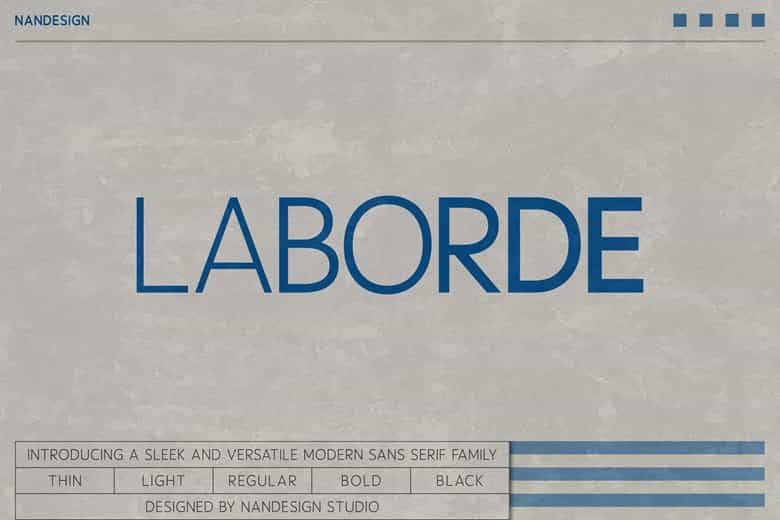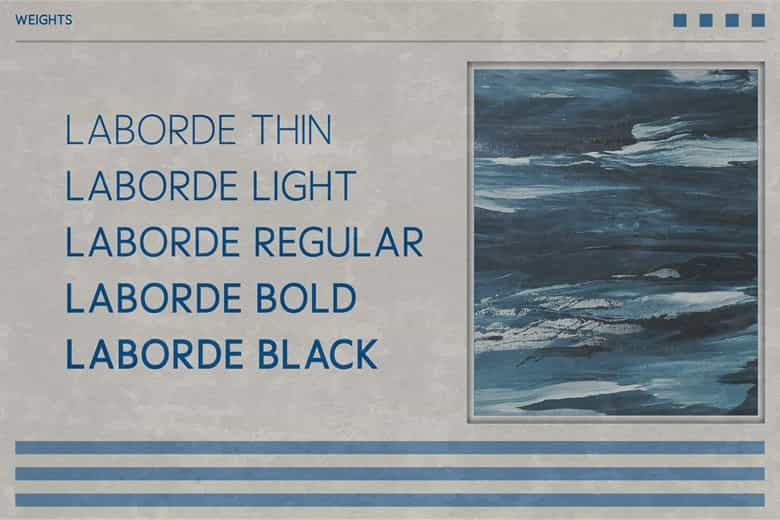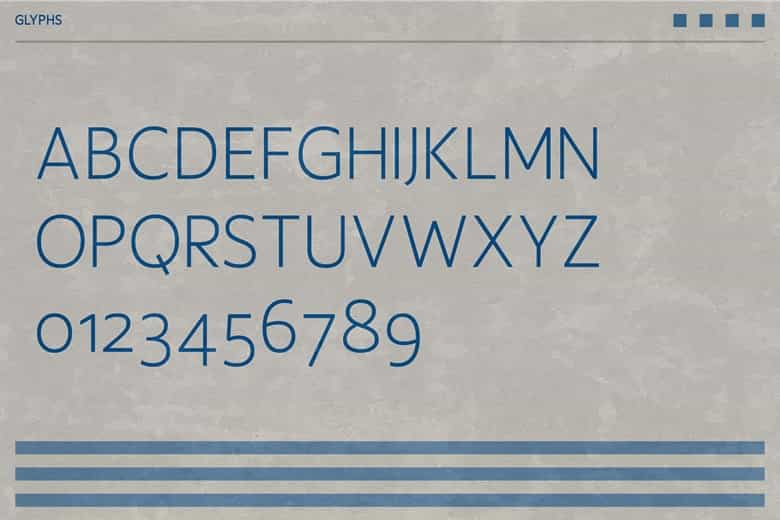
Discover Laborde Font Family, part of the Sans Serif collection—a versatile and unique font perfect for adding a personal touch to your projects. Download it for free and enjoy crafting designs with style, from invitations to social media posts. This font is available exclusively for personal use, giving you the freedom to create without limits. Unlock your creativity with Laborde Font Family today!
Laborde is an elegant all-purpose sans serif font family that revolutionizes contemporary style. With 5 of them, which allow for really versatile and smooth transition in between, ideally it suits magazines and logos, films and posters, etc.